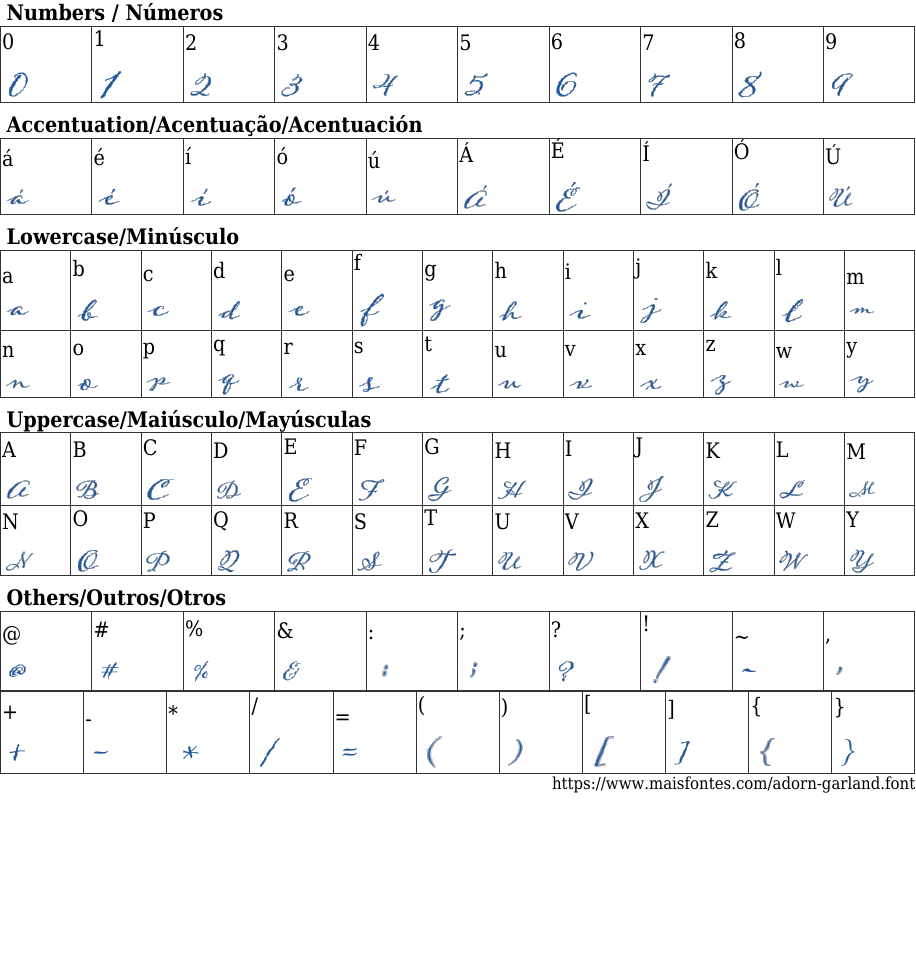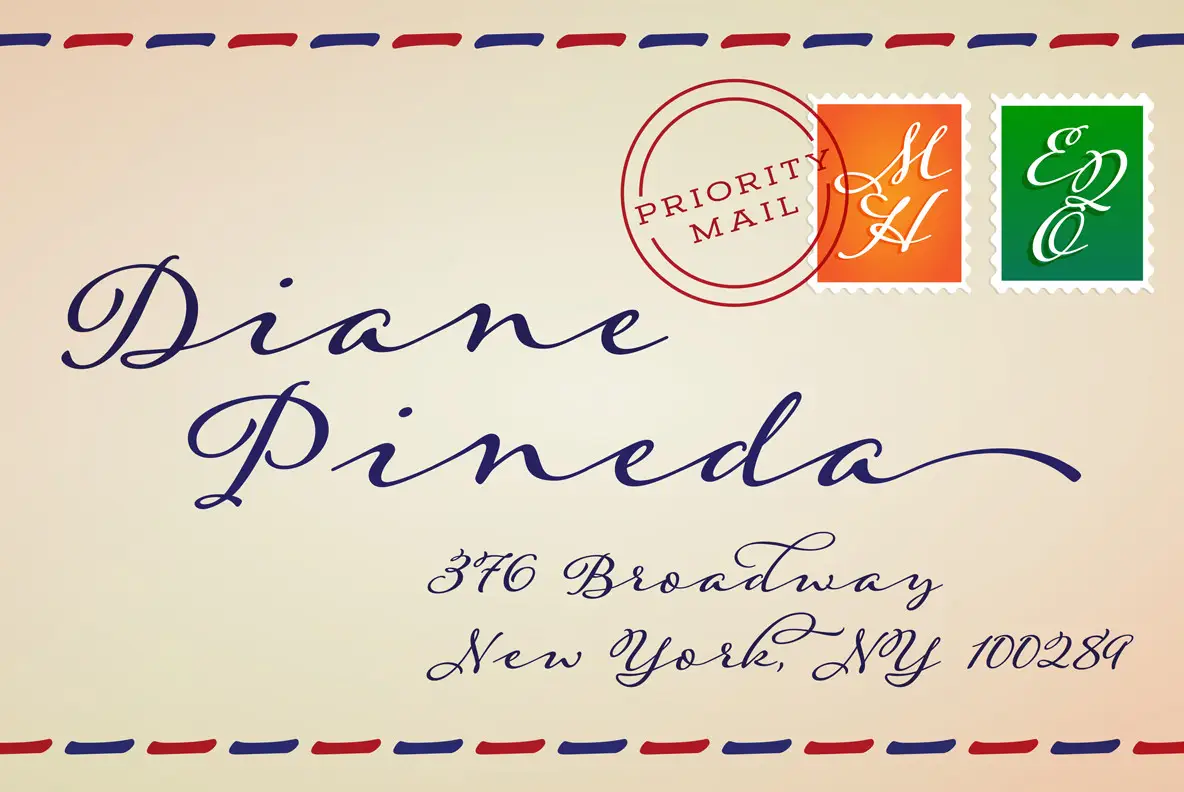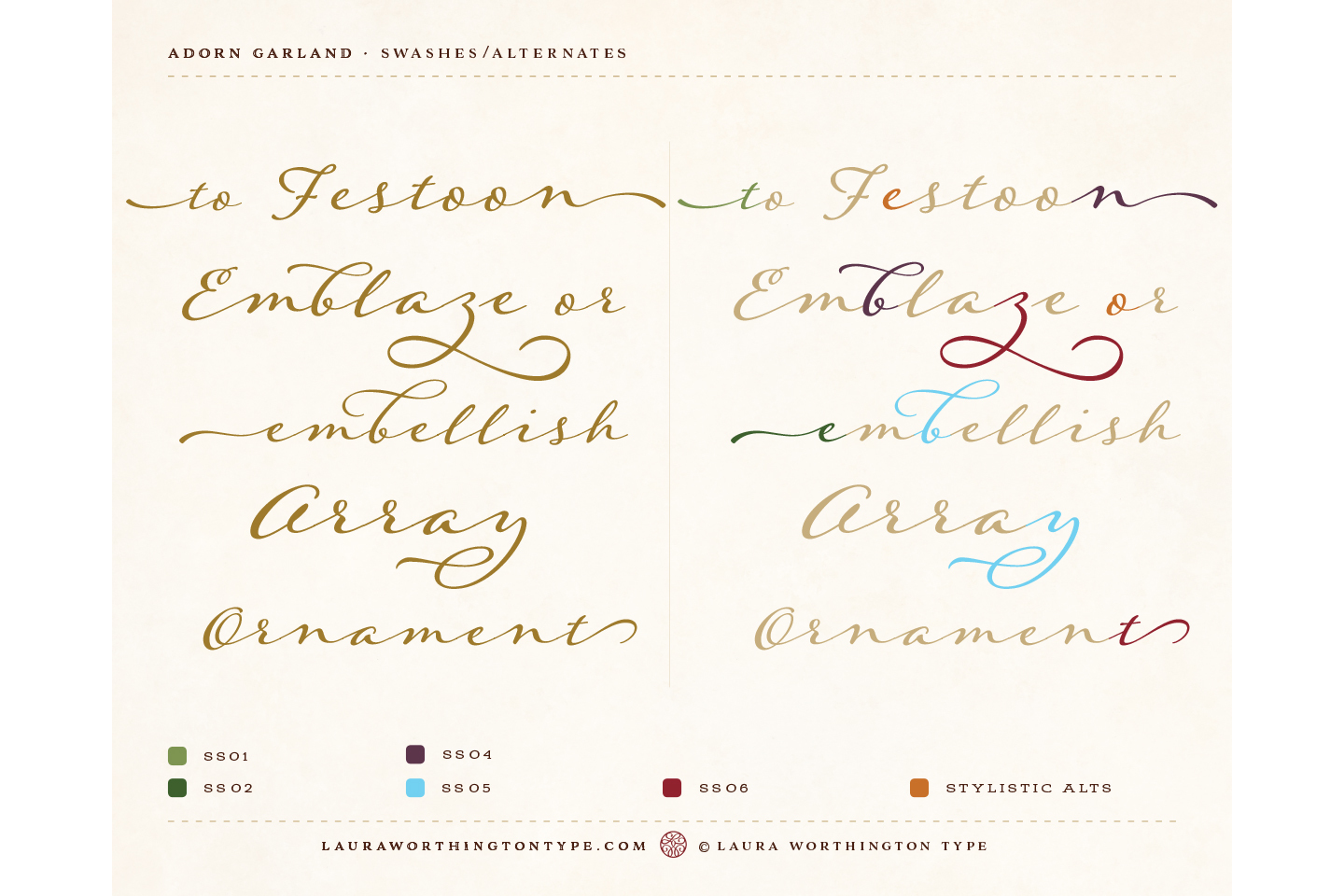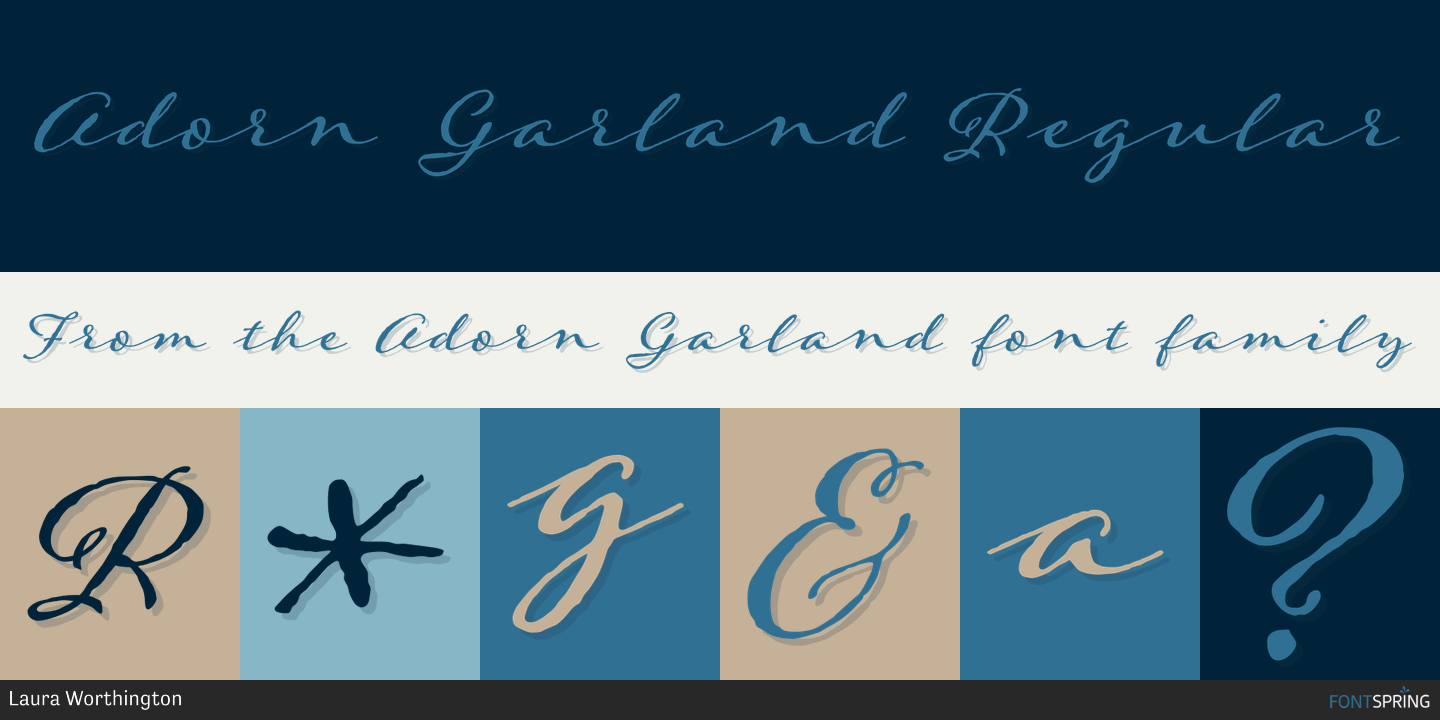
Adorn Garland Font . What can be more lovely than a wedding, an invitation or a gift from the heart? Web adorn garland is a script face that runs along a different, and somewhat “vintage” direction.
Web adorn garland is a script face that runs along a different, and somewhat “vintage” direction. Web adorn smooth garland is a script face that runs along a somewhat “vintage” direction. Web adorn garland is the perfect font for all your fun designs.
Beautiful as it is, it works as. What can be more lovely than a wedding, an invitation or a gift from the heart? One whose presentation uses the warm and. Rather than deriving its strength from a heavy skeleton or structure, it uses its.
Adorn Garland Font - Beautiful as it is, it works as. What can be more lovely than a wedding, an invitation or a gift from the heart? Web adorn garland is the perfect font for all your fun designs. Web adorn garland is a script face that runs along a different, and somewhat “vintage” direction. Rather than deriving its strength from a heavy skeleton.
Adorn Garland Font - Beautiful as it is, it works as. Web adorn garland is a script face that runs along a different, and somewhat “vintage” direction. What can be more lovely than a wedding, an invitation or a gift from the heart? Web adorn smooth garland is a script face that runs along a somewhat “vintage” direction. Rather than deriving its strength from.
Adorn Garland Font - Web adorn smooth garland is a script face that runs along a somewhat “vintage” direction. Beautiful as it is, it works as. One whose presentation uses the warm and. Rather than deriving its strength from a heavy skeleton or structure, it uses its. Web adorn garland is the perfect font for all your fun designs.
Adorn Garland Font - Web adorn smooth garland is a script face that runs along a somewhat “vintage” direction. Adorn garland part of the adorn family of fonts. Beautiful as it is, it works as. Rather than deriving its strength from a heavy skeleton or structure, it uses its. Web adorn garland is one of the 20 fonts in the adorn family by.
Adorn Garland Font - What can be more lovely than a wedding, an invitation or a gift from the heart? The font subfamily is regular. Web adorn smooth garland is a script face that runs along a somewhat “vintage” direction. Web adorn garland is one of the 20 fonts in the adorn family by. Beautiful as it is, it works as.
Adorn Garland Font - Web adorn garland is one of the 20 fonts in the adorn family by. Web adorn garland is the perfect font for all your fun designs. Web adorn garland is a script face that runs along a different, and somewhat “vintage” direction. The font subfamily is regular. Rather than deriving its strength from a heavy skeleton or structure, it uses.
Adorn Garland Font - Rather than deriving its strength from a heavy skeleton or structure, it uses its. What can be more lovely than a wedding, an invitation or a gift from the heart? Web adorn garland is one of the 20 fonts in the adorn family by. Web adorn garland is a script face that runs along a different, and somewhat “vintage” direction..
Adorn Garland Font - Web adorn garland is a script face that runs along a different, and somewhat “vintage” direction. Rather than deriving its strength from a heavy skeleton or structure, it uses its. Beautiful as it is, it works as. Web adorn smooth garland is a script face that runs along a somewhat “vintage” direction. Rather than deriving its strength from a heavy.
Adorn Garland Font - Web adorn garland is a script face that runs along a different, and somewhat “vintage” direction. Adorn garland part of the adorn family of fonts. Web adorn garland is the perfect font for all your fun designs. Rather than deriving its strength from a heavy skeleton or structure, it uses its. Beautiful as it is, it works as.
Adorn Garland Font - Web adorn garland is a script face that runs along a different, and somewhat “vintage” direction. Web adorn garland is the perfect font for all your fun designs. Web adorn garland is one of the 20 fonts in the adorn family by. What can be more lovely than a wedding, an invitation or a gift from the heart? Web adorn.
Adorn Garland Font - Web adorn garland is a script face that runs along a different, and somewhat “vintage” direction. Web adorn garland is a script face that runs along a different, and somewhat “vintage” direction. Web adorn smooth garland is a script face that runs along a somewhat “vintage” direction. Web adorn garland is one of the 20 fonts in the adorn family.
Adorn Garland Font - Rather than deriving its strength from a heavy skeleton or structure, it uses its. Web adorn garland is one of the 20 fonts in the adorn family by. Beautiful as it is, it works as. Web adorn smooth garland is a script face that runs along a somewhat “vintage” direction. Web adorn garland is a script face that runs along.
Adorn Garland Font - Web adorn garland is a script face that runs along a different, and somewhat “vintage” direction. Adorn garland part of the adorn family of fonts. Beautiful as it is, it works as. Web adorn garland is the perfect font for all your fun designs. Rather than deriving its strength from a heavy skeleton or structure, it uses its.